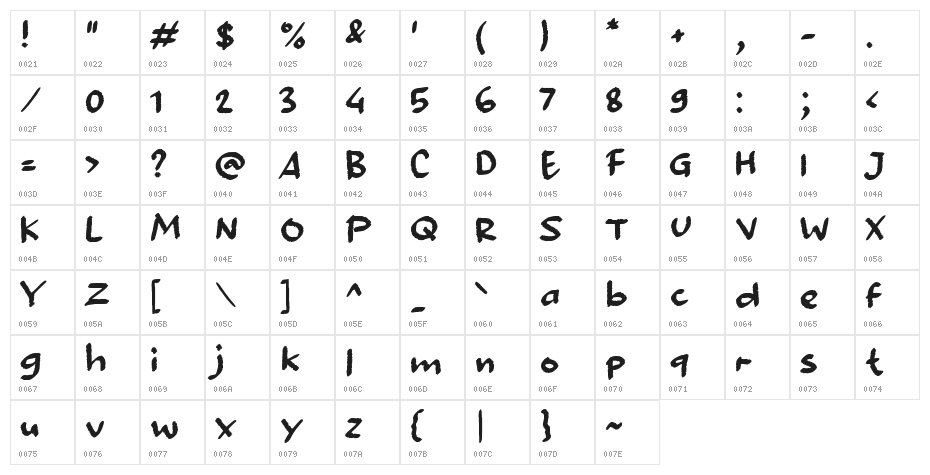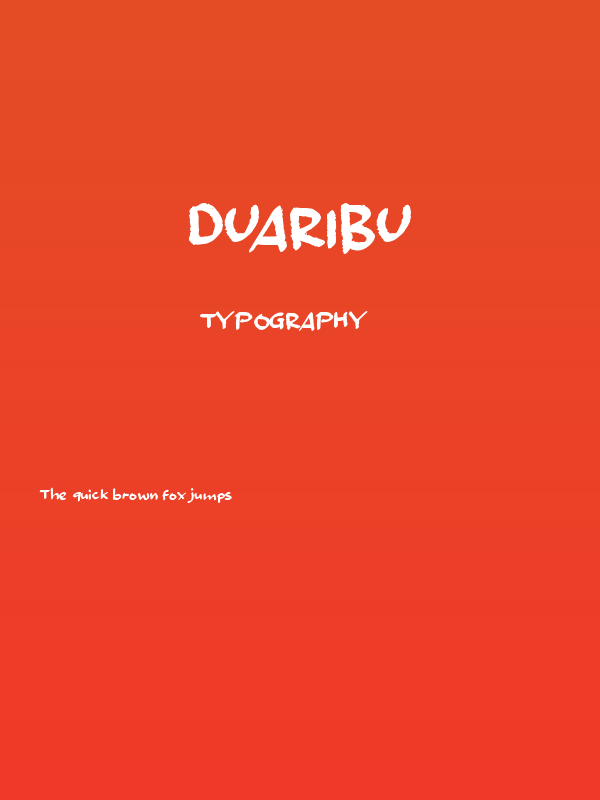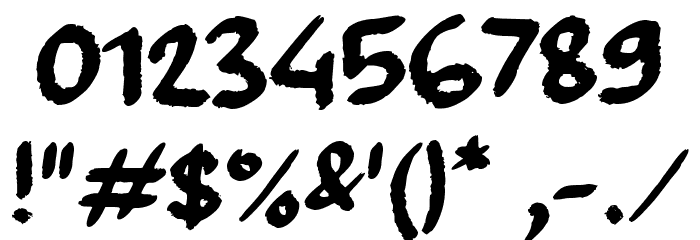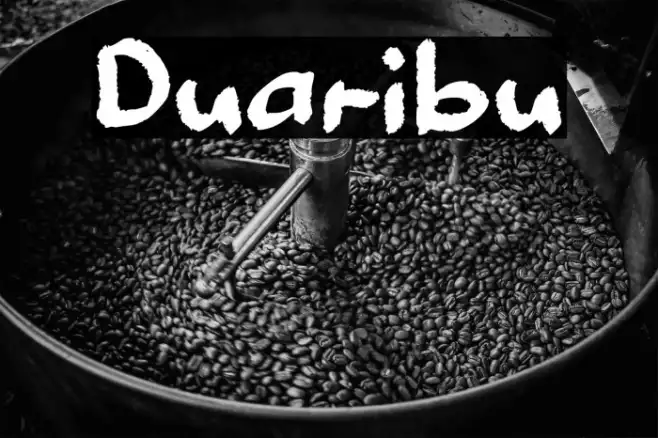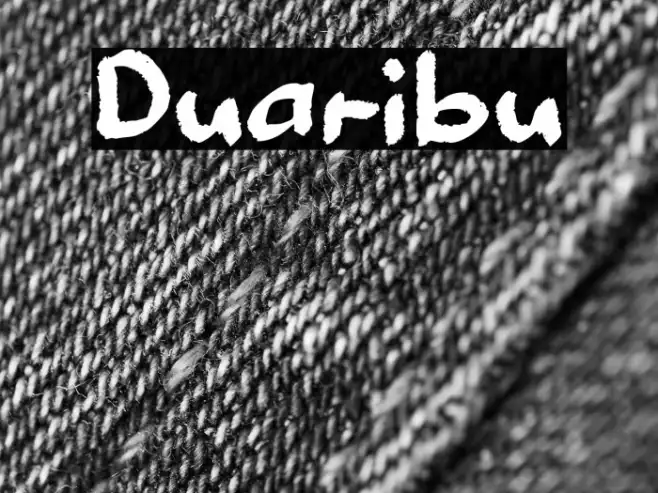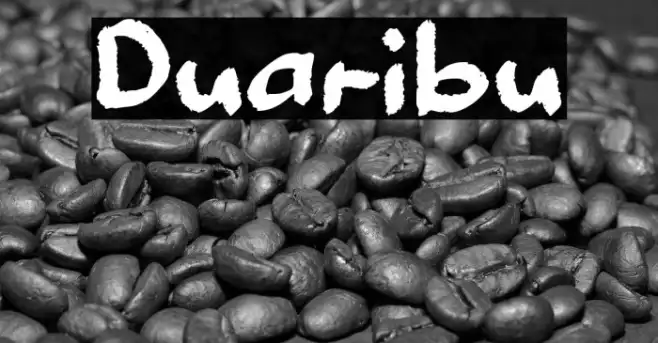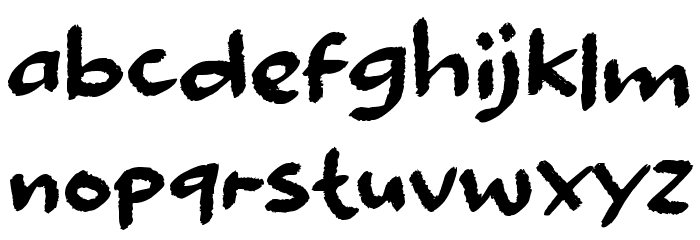
Duaribu Font
Duaribu Description
This font features a bold, brush-like style that exudes a sense of energy and dynamism. The strokes are thick and uneven, giving it a hand-drawn appearance that is both casual and artistic. The uppercase and lowercase letters maintain a consistent style, with rounded edges and a slightly slanted orientation, which adds to its informal charm. The numbers and special characters follow the same aesthetic, ensuring a cohesive look across all elements. This font is particularly suitable for projects that require a personal touch or a creative flair, such as posters, invitations, or branding materials.
| Overall Style | Casual, Artistic |
| Proposed Projects | Ideal for creative projects like posters, invitations, and branding materials. |